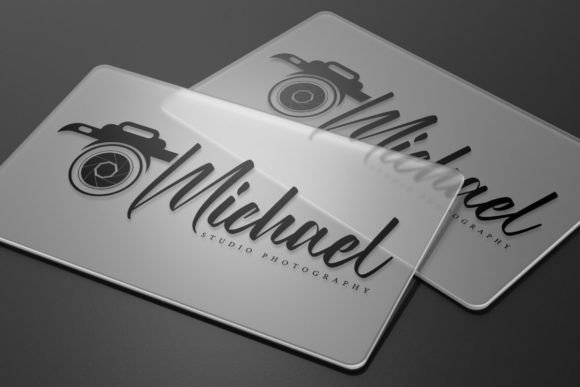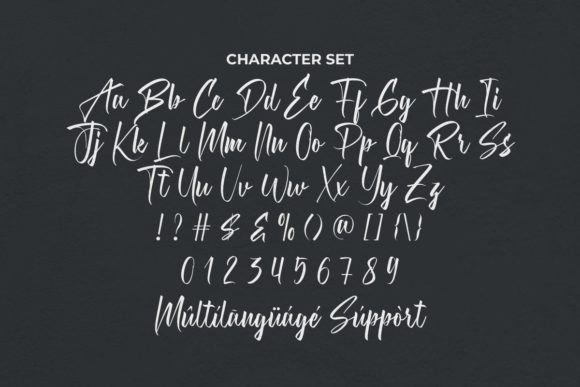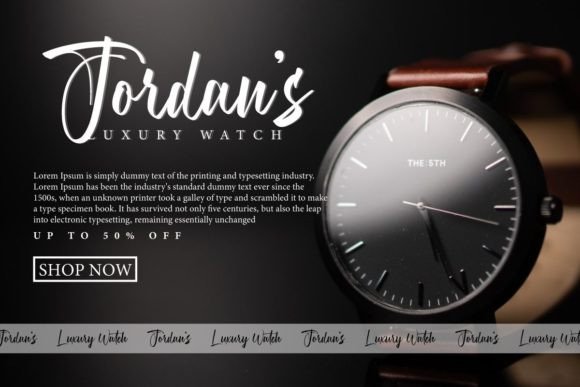
Introduction to Journey Begins Font
Journey Begins is an elegant and modern script font that can elevate the look of any creative project.
This relaxed handwritten font can be used for fashion design, photography, product design, thank you cards, travel events, wedding projects, and other ideas that need a handwritten touch This font is PUA encoded, which means you can access all of the glyphs and swashes with ease.